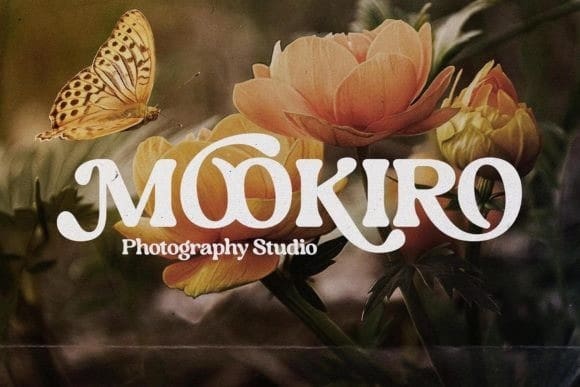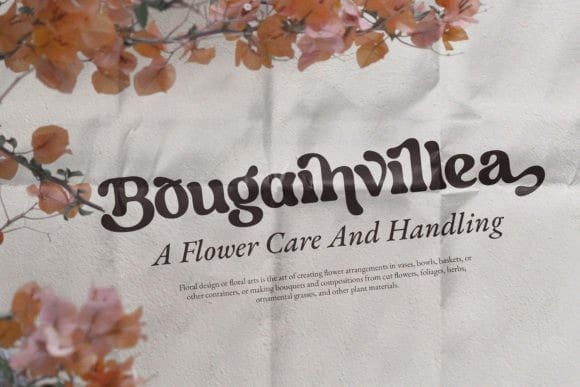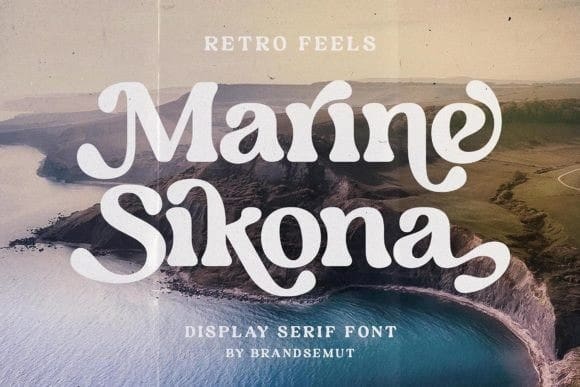
Marine Sikona Font
Marine Sikona Font is a modern and chic serif font masterfully crafted to become a true favorite. Contemporary and fresh, it is perfect for any design you wish to create. Add it to your creative projects and make them outstanding!